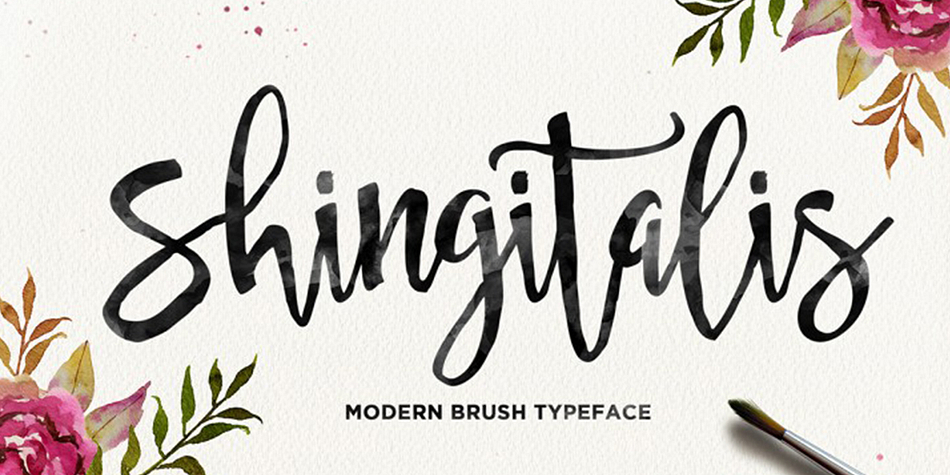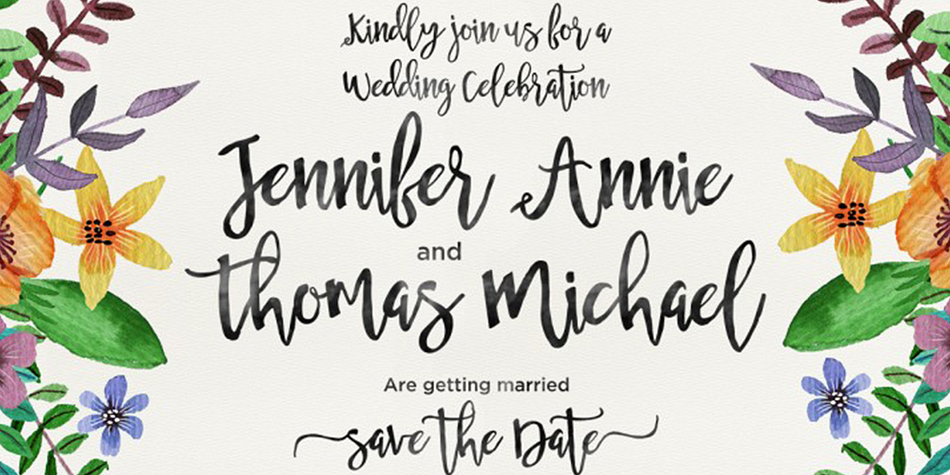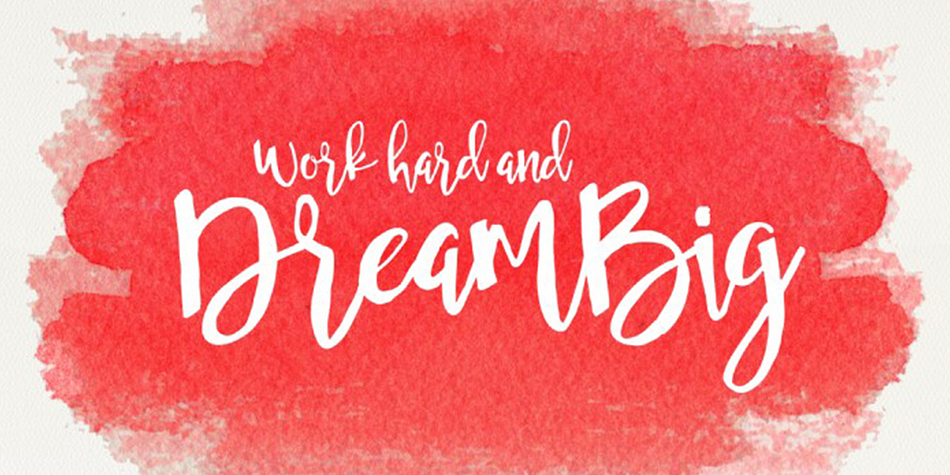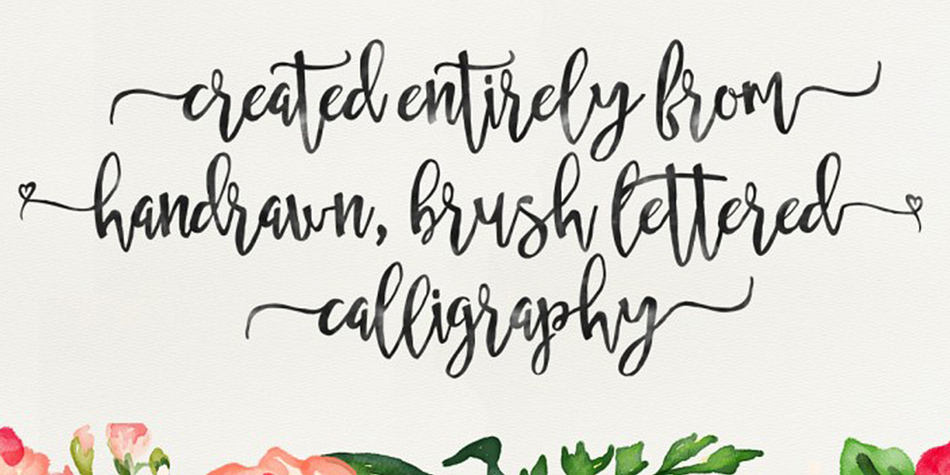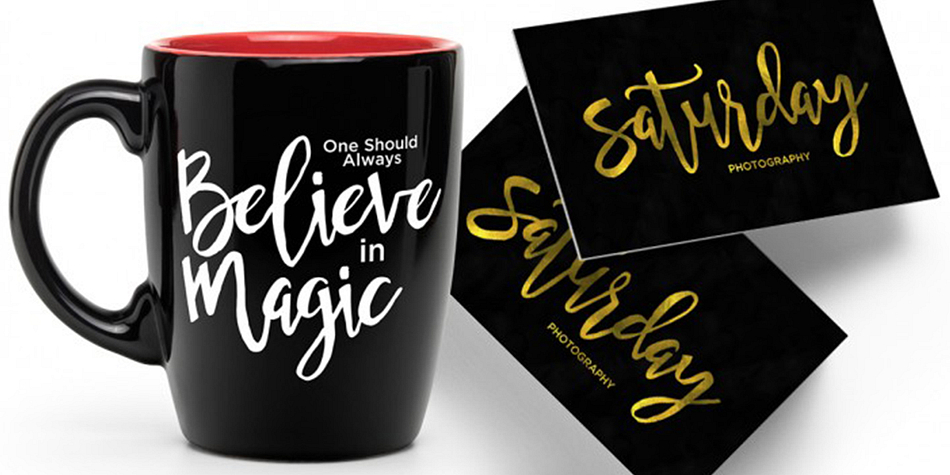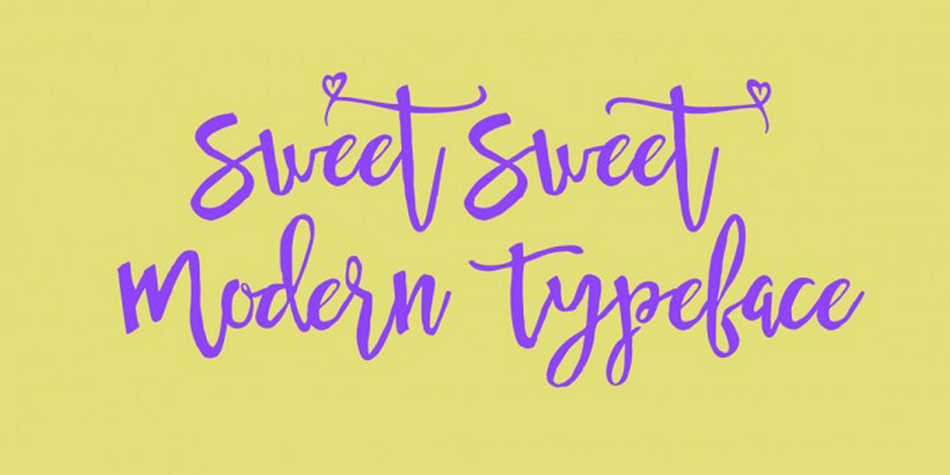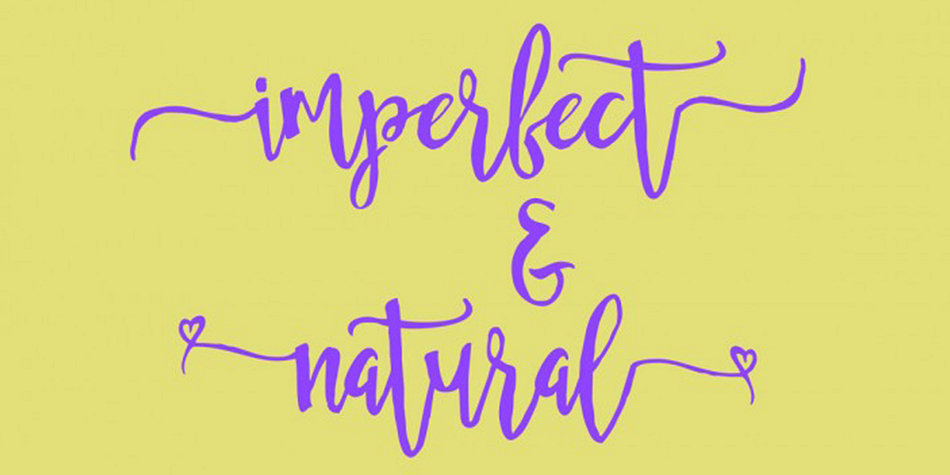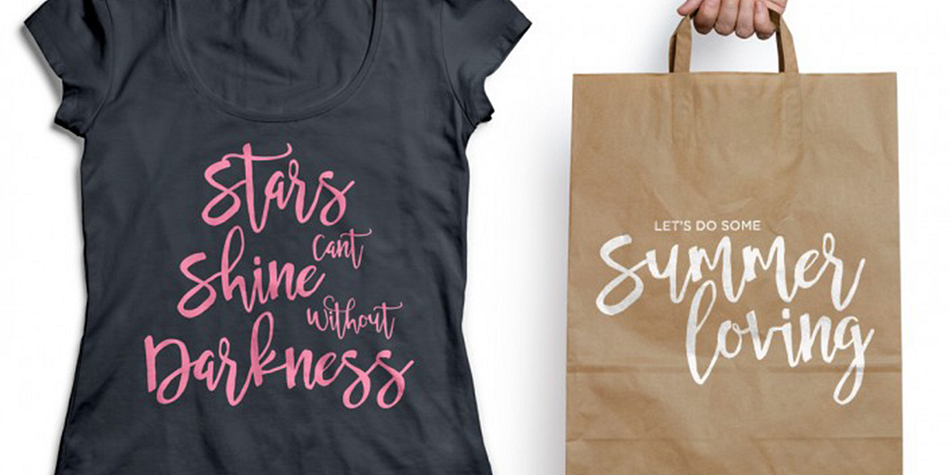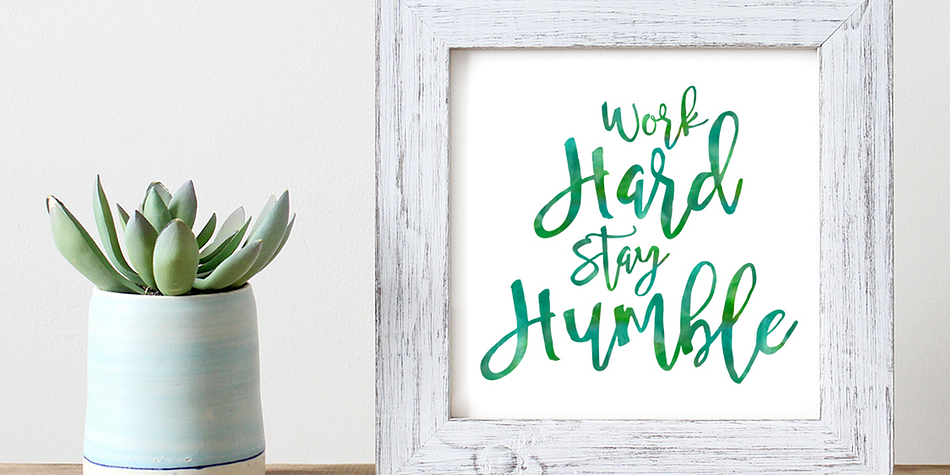
Shingitalis Typeface is a modern calligraphy font published by Area Type Studio.
Shingitalis Script is a modern calligraphy font, with characters dance along the baseline and elegant touch. Opentype features with stylistic alternates, ligatures, and multiple language support.
Can be used for various purposes.such as logos, wedding invitation, heading, t-shirt, letterhead, signage, label, news, posters, badges etc.